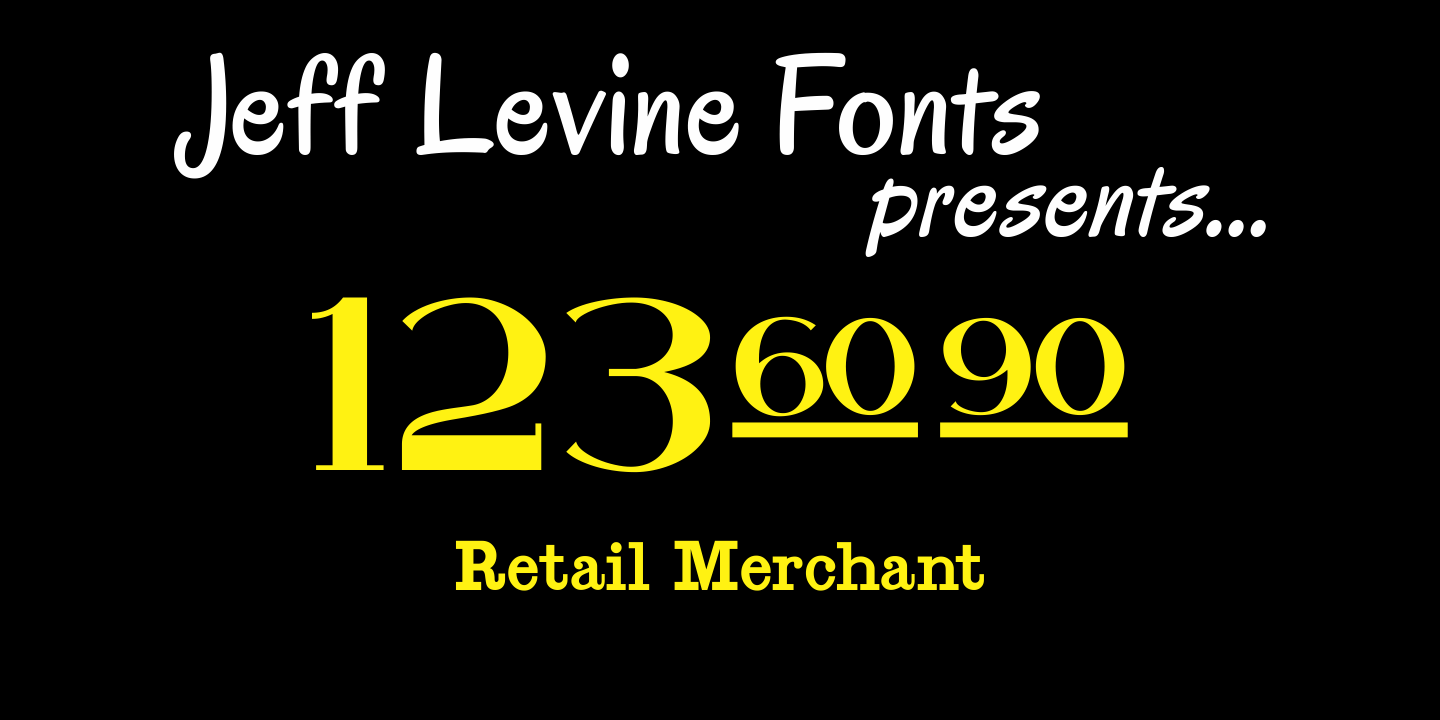
Retail Merchant
Retail Merchant JNL is strictly for making prices. The 0-9 keys have large numbers, the shift position of the same keys have smaller, centered numbers, and the alphabet keys have a variety of smaller numbers with underscores in single digits, pairs of numerals and even a few complete prices such as "$1.00". Thrown in for good measure are companion words... "at", "for, "each", "lb." and "dozen"...